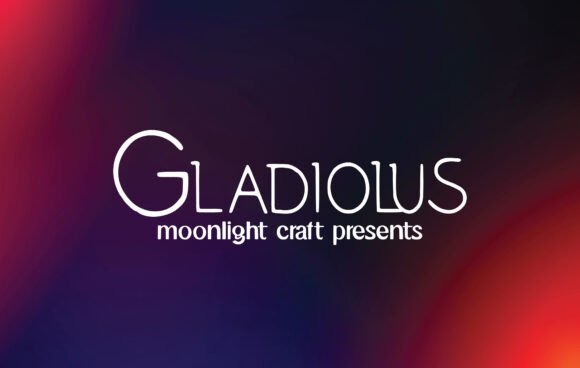
Enter the Gladiolus Font, a beautifully crafted typeface designed to be your go-to favorite. Whether you’re working on magazine headlines, social media posts, or wedding invitations, this font is the perfect addition to your collection. With its easy-to-read design and elegant style, it’s no wonder the Gladiolus Font has become a must-have for designers looking to take their projects to the next level.
- Unique Characteristics: Gladiolus Font features a modern, elegant design with a unique blend of geometric and organic shapes, making it suitable for various design applications, including logos, branding, and editorial content
Gladiolus Font Review
- ✨ Beautiful and elegant design: The Gladiolus Font has a classic and sophisticated look to it, making it perfect for formal projects and branding.
- ✨ Wide range of weights and styles: The font family includes a variety of weights and styles, allowing for a lot of flexibility and customization options.
- ✨ Excellent legibility: The font is easy to read, even at smaller sizes, making it a great choice for body text and other areas where readability is important.
- ⚠️ Limited support for non-Latin scripts: Unfortunately, the Gladiolus Font does not support many non-Latin scripts, which can be a problem for projects that require multilingual support.
- ⚠️ Not ideal for bold, attention-grabbing headlines: While the font is beautiful, it’s not the best choice for headlines or other areas where you need to grab the reader’s attention.
The Gladiolus Font is a versatile font that can be used in a variety of applications, including:
Event promotions and signage
Branding and marketing materials